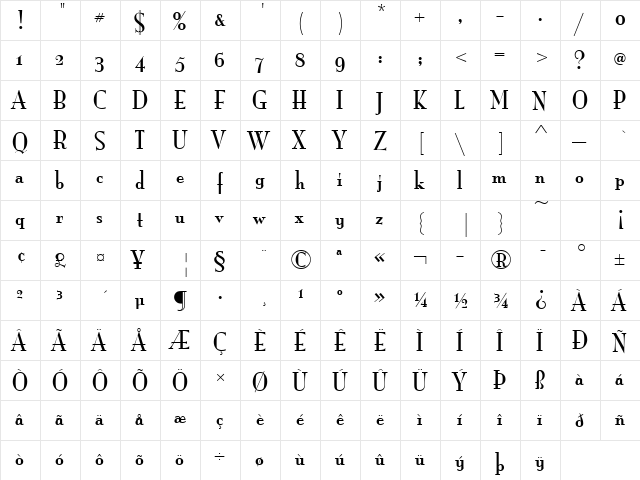
Mona Lisa Solid OS ITC TT Regular
Design Context for Mona Lisa Solid OS ITC TT Typeface
Mona Lisa Solid OS ITC TT is a composed and adaptable typeface that performs quietly and consistently across a wide range of design contexts.